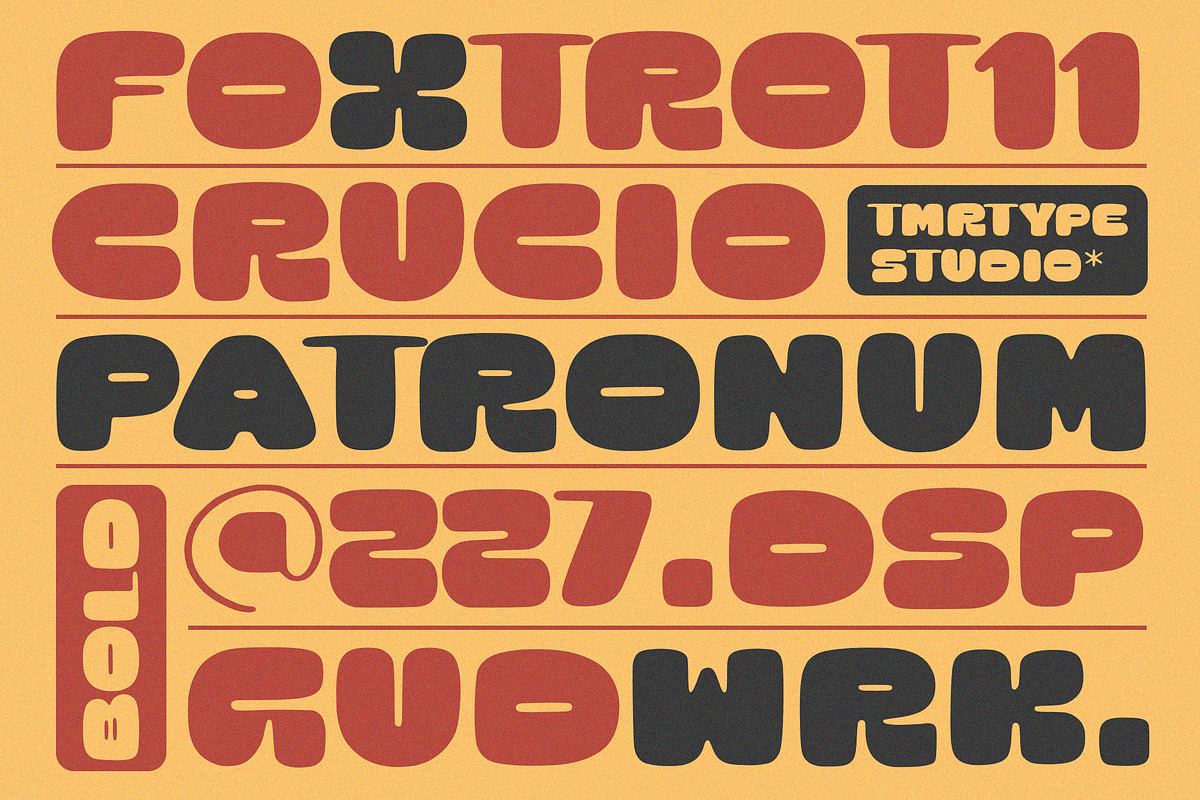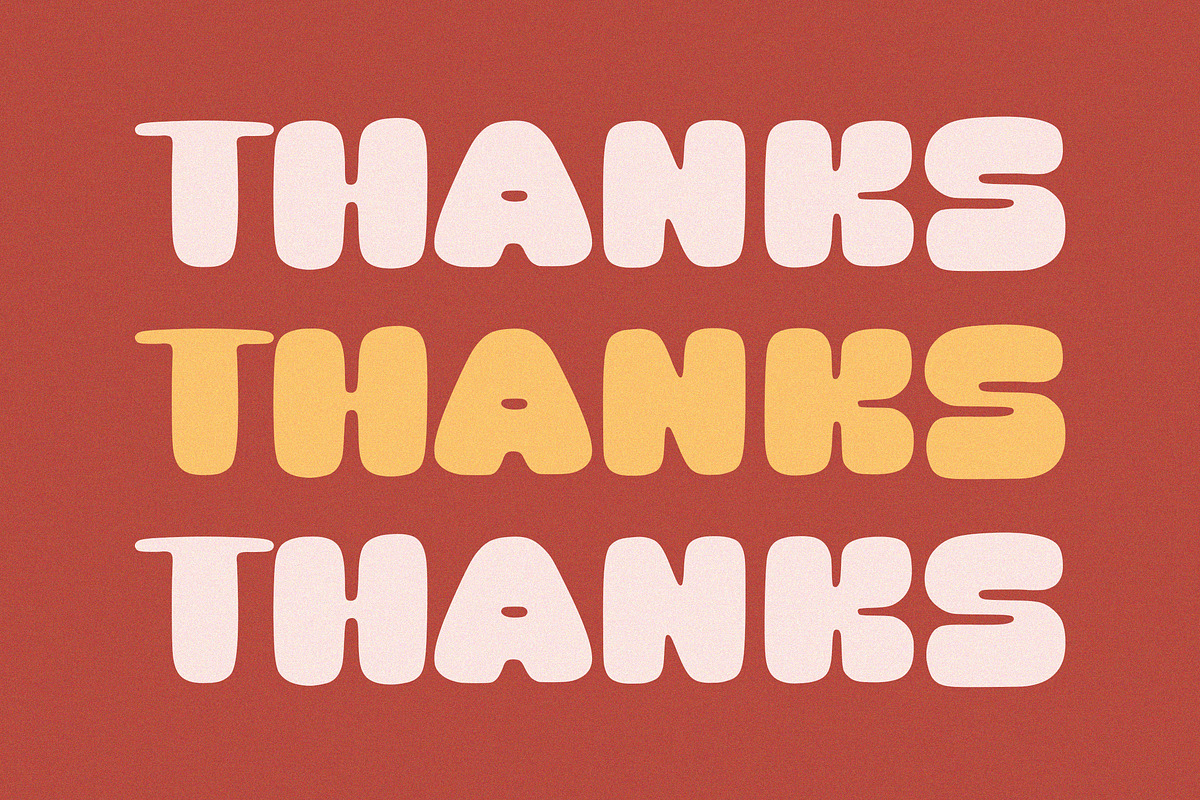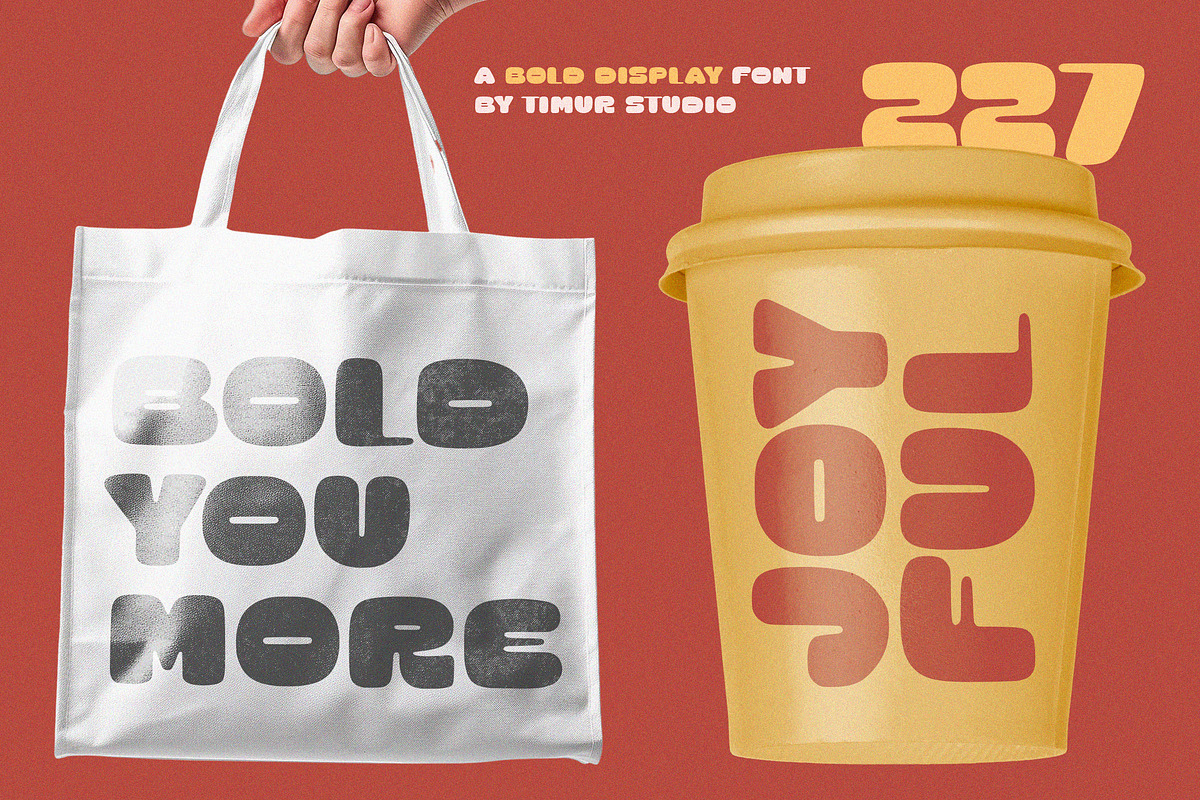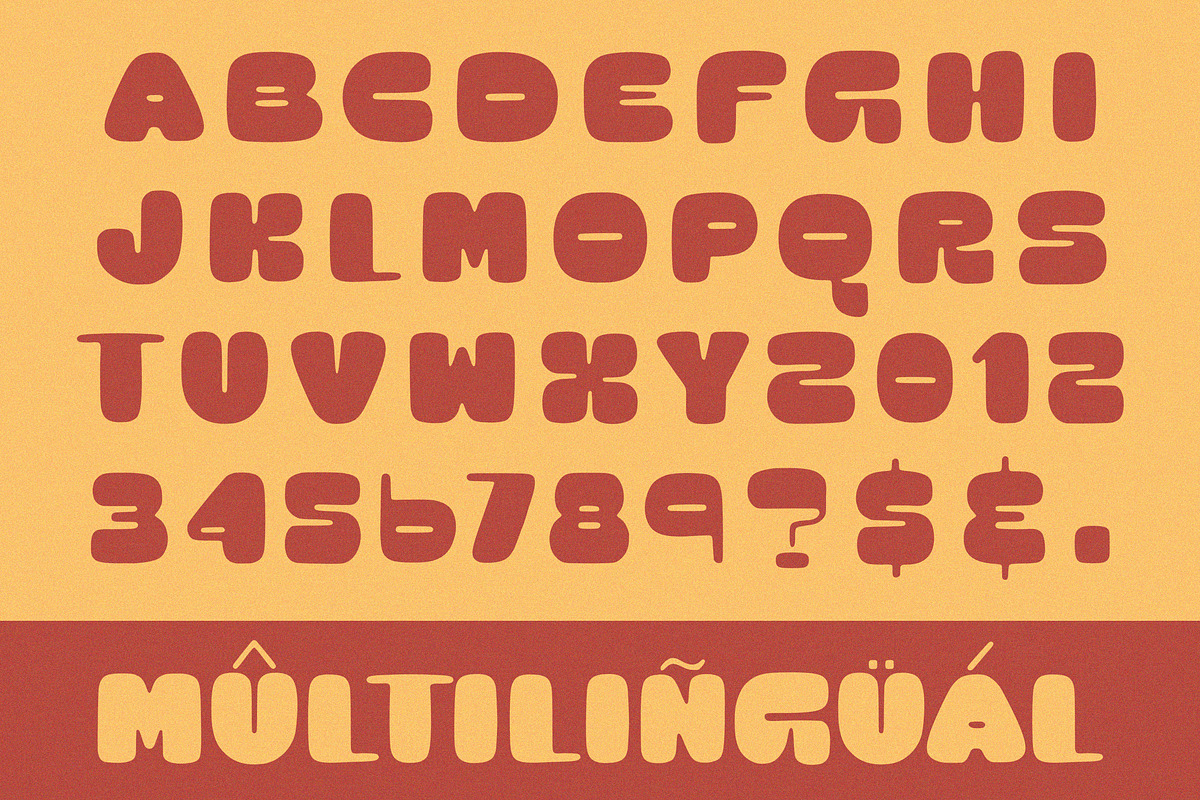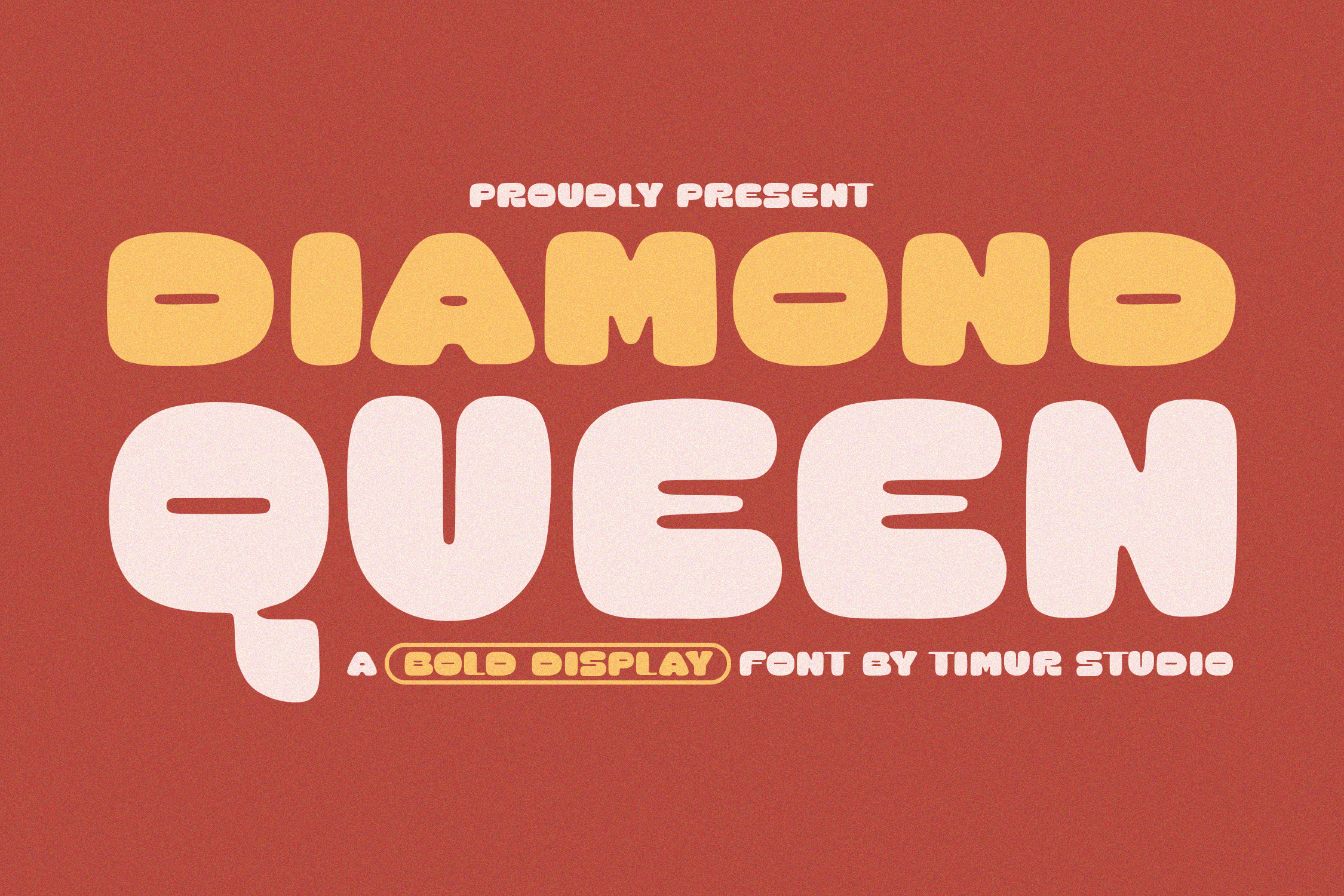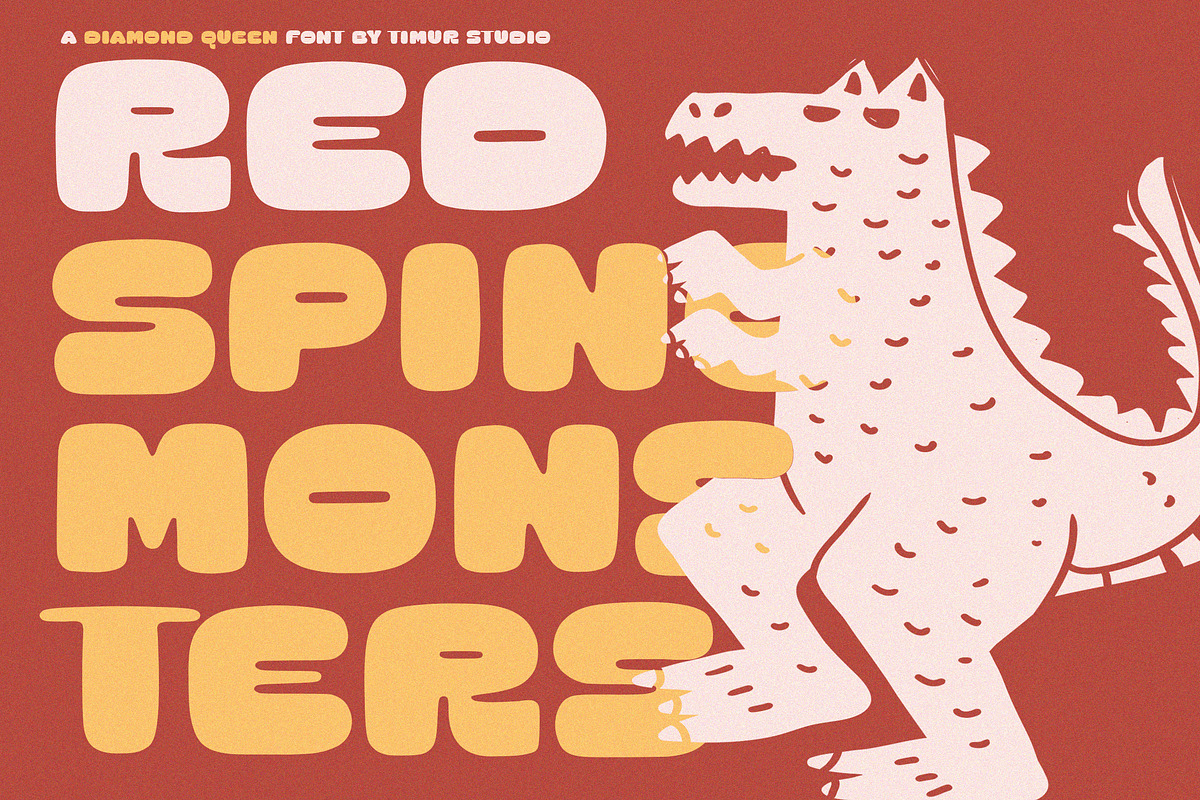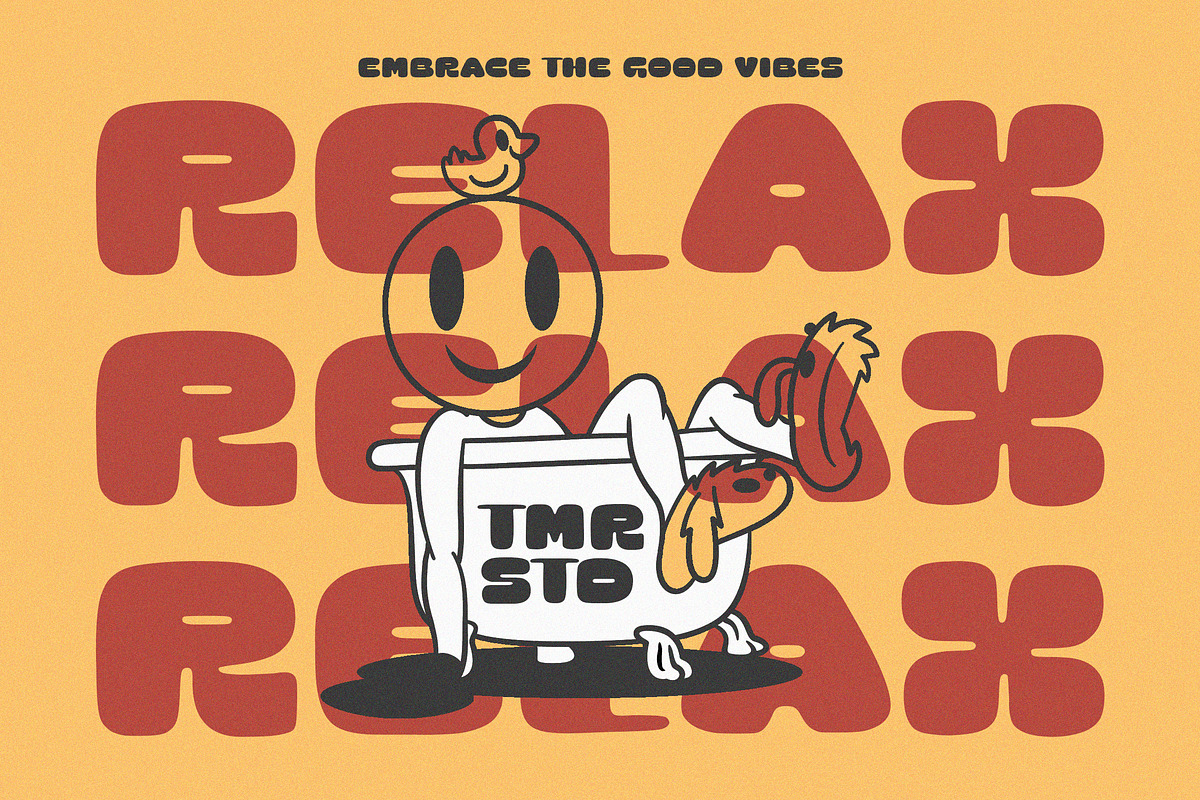
Diamond Queen Font
Introduced by Timurtype Studio!
Diamond Queen is a Bold Display Font
This font is a striking bold display font that exudes elegance and grandeur. With its sharp, angular lines and geometric precision, it commands attention and adds a touch of luxury to any design. Perfect for headlines, posters, and high-impact branding, Diamond Queen blends modern sophistication with timeless regality, making it a standout choice for projects that demand both strength and style.
Diamond Queen Font also supports multilingualism